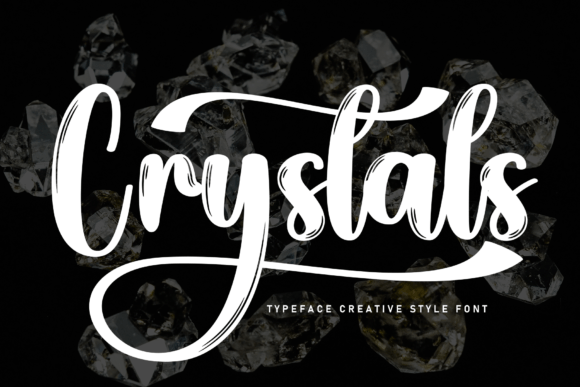
Get ready to be smitten with Crystals Font, a script font that exudes charm and playfulness! With its enchanting strokes and delightful curves, Crystals is the perfect companion for designers seeking a touch of whimsy. Its enchanting appeal is sure to cast a spell on your designs, inviting viewers to embark on a journey of imagination.
Crafted by the brilliant minds at andikastudio, Crystals Font possesses an inherent magic that transforms ordinary designs into captivating works of art. Its graceful lines dance across the page, creating a symphony of elegance and charm. Dive into a world where creativity knows no bounds, where your ideas take center stage, and your designs become irresistible.
Whether you're a seasoned designer or just starting, Crystals Font is your gateway to creating designs that captivate and inspire. Unleash your imagination and let the font guide you through a realm of endless possibilities. From enchanting invitations and breathtaking posters to eye-catching social media posts and spellbinding logos, Crystals Font is your ultimate tool for crafting designs that leave a lasting impression.
But the enchantment doesn't end there! Crystals Font is a versatile chameleon, adapting seamlessly to a myriad of design styles. Its sweet and friendly demeanor makes it ideal for T-shirt designs, adding a touch of whimsy and personality. It effortlessly elevates branding designs, infusing them with a unique charm that sets them apart from the mundane.
With Crystals Font, you'll unlock a treasure chest of creative opportunities, transforming your ideas into tangible masterpieces. So, why settle for ordinary when you can create designs that dance with delight and capture hearts? Experience the magic of Crystals Font today and embark on a creative journey that will leave you spellbound!